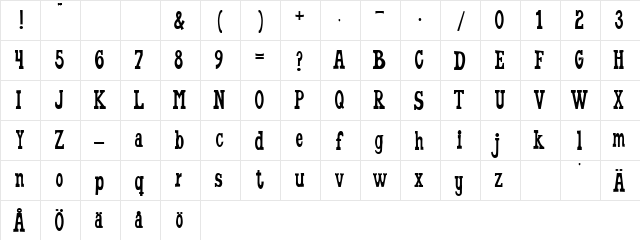
WorldsFinest Normal
Design Context for WorldsFinest Typeface
WorldsFinest offers clean, dependable letterforms without strong stylistic allegiance, making it a practical choice for designers who need flexibility.